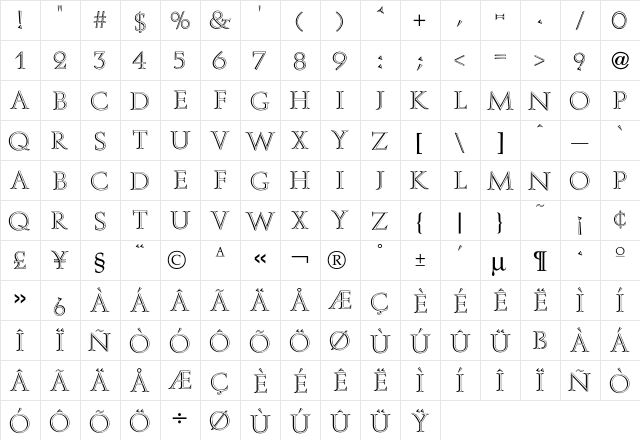
Aurea Inline Font Preview
Aurea Inline
| Style | Inline |
Design Context for Aurea Typeface
Aurea brings ornamental detail and strong personality to headlines and identities, where visual impact matters more than quiet functionality.
Font Pairing: Pair with a clean neutral sans-serif for body copy to let Aurea's character lead without overwhelming the composition.
Pro Tip: Treat Aurea as the centrepiece of your typographic hierarchy. One strong heading set in a decorative face can carry an entire layout.